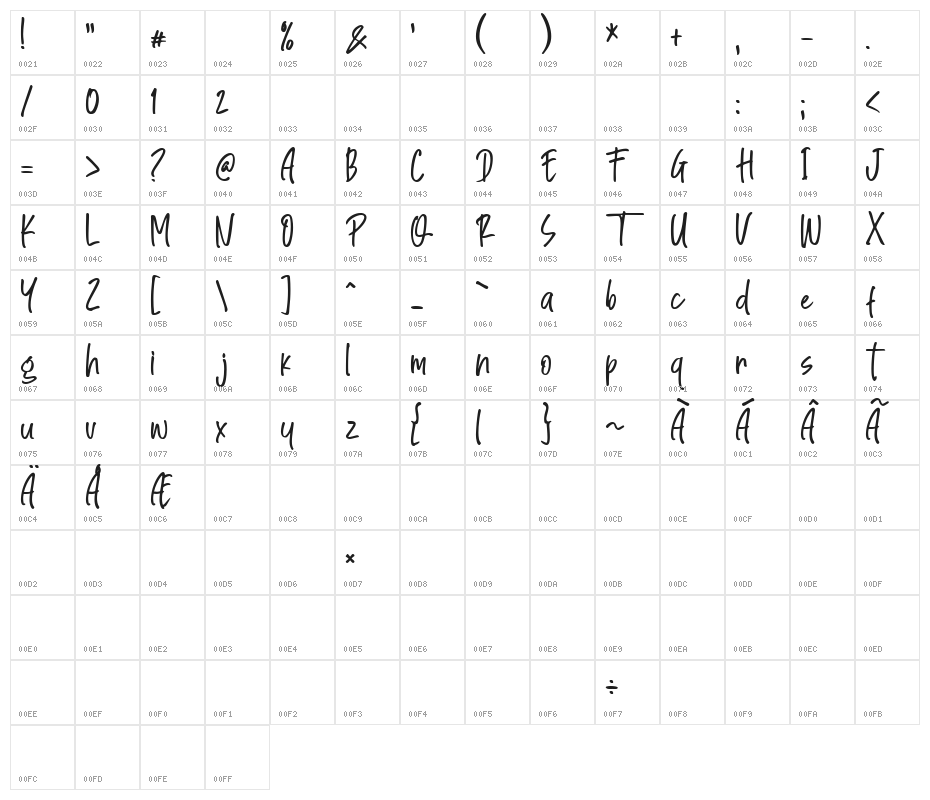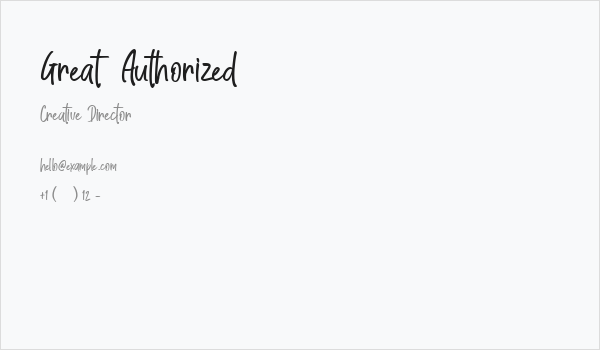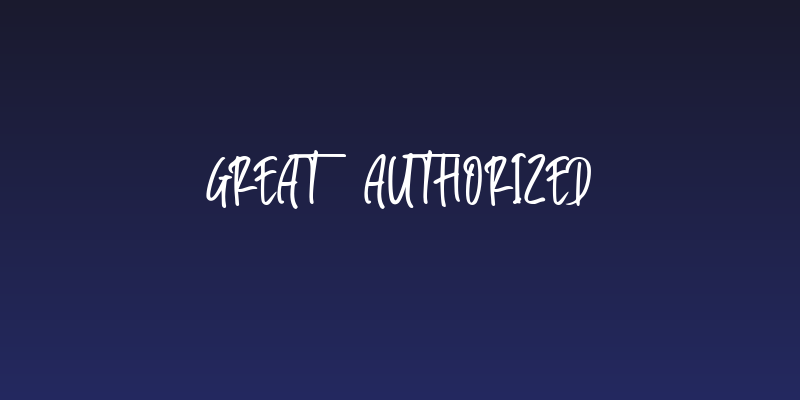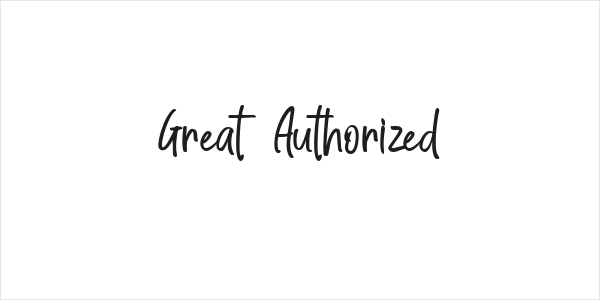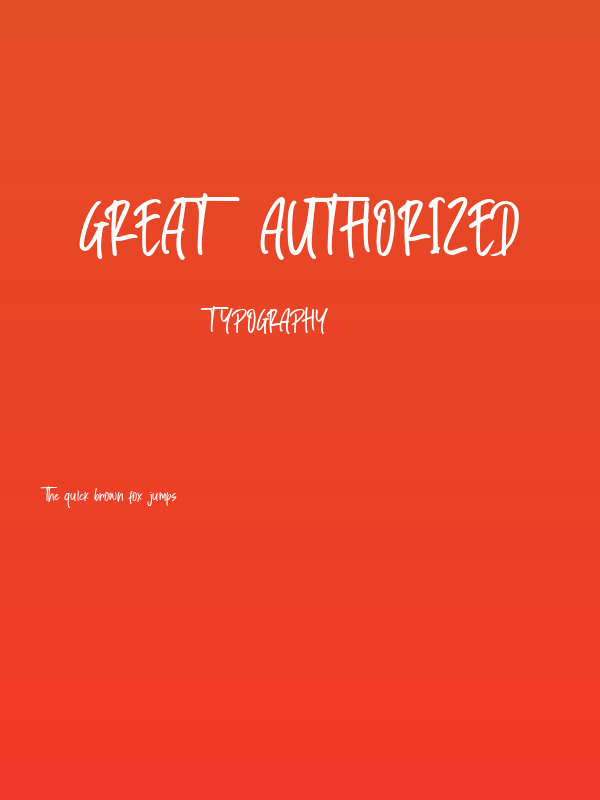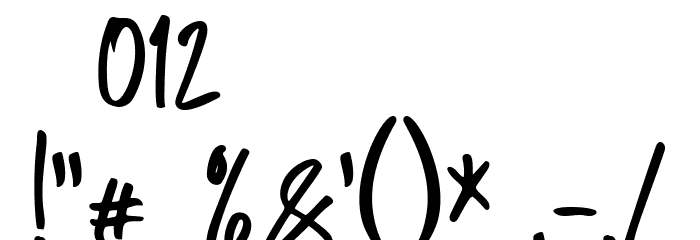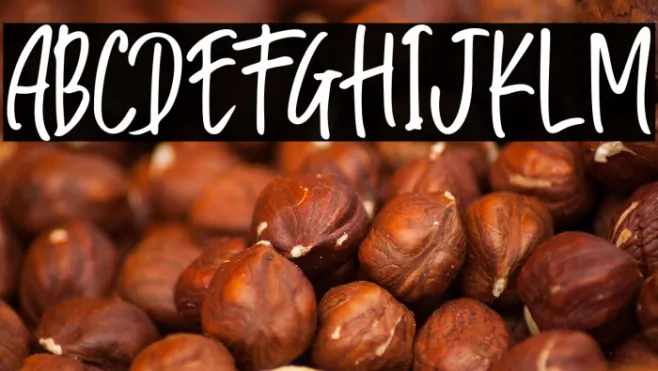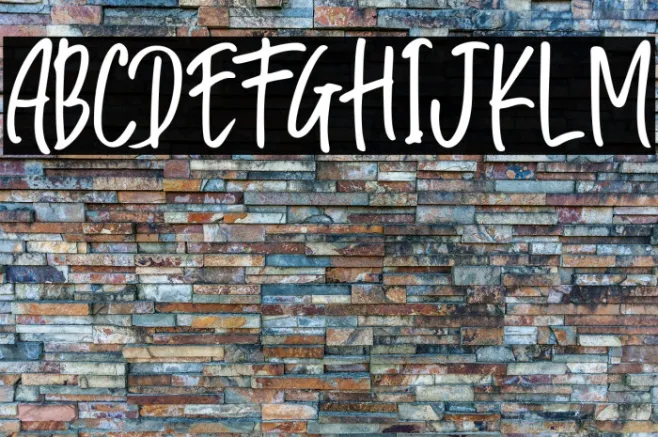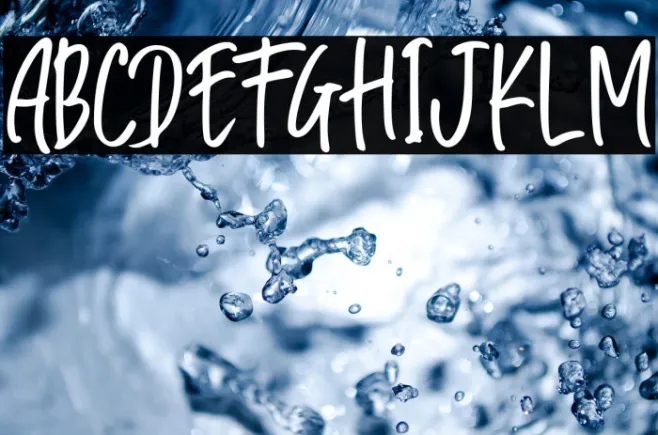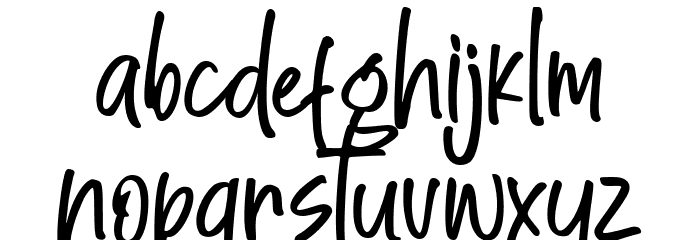
Great Authorized Font
Great Authorized Description
This font features a playful and casual handwritten style, characterized by its flowing, organic strokes and slightly irregular letterforms. The uppercase and lowercase letters maintain a consistent style, with a smooth, rounded appearance that adds a friendly and approachable feel. The numbers and special characters follow the same design principles, ensuring a cohesive look across all glyphs. The font's informal nature makes it ideal for projects that require a personal touch or a relaxed vibe. Its legibility is enhanced by the clear distinction between characters, despite the whimsical style.
| Proposed Projects | Ideal for greeting cards, invitations, personal branding, and social media graphics. |